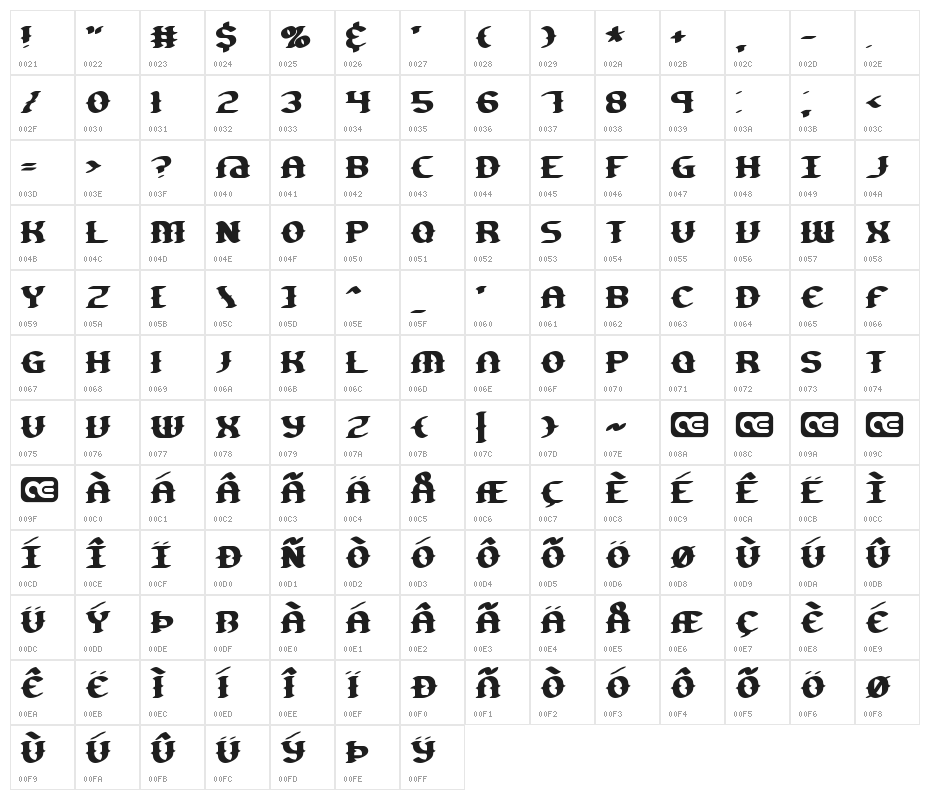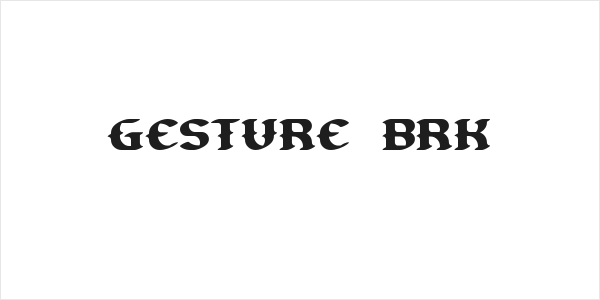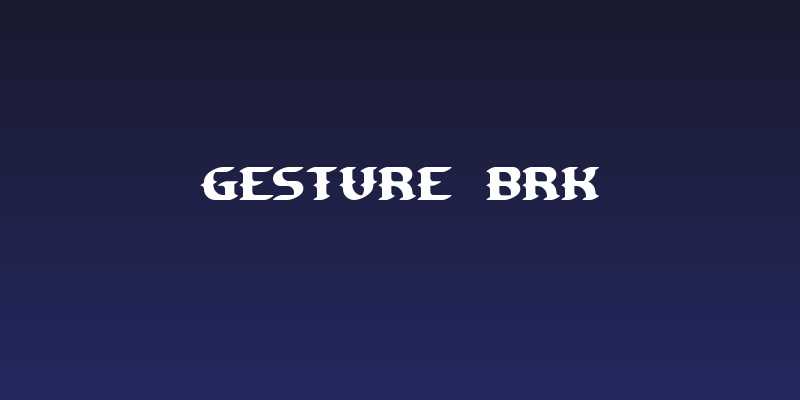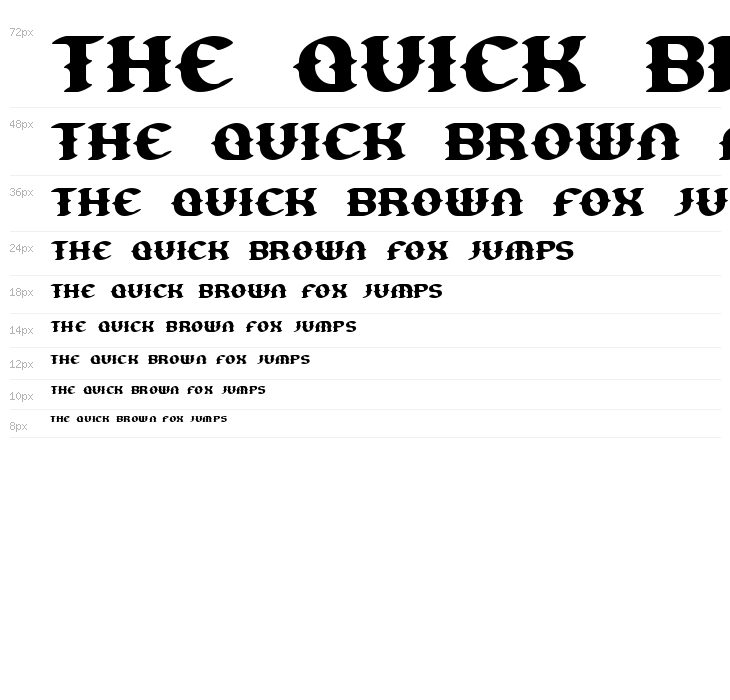
Gesture BRK Font
Gesture BRK Description
This font features a bold and striking design with a strong blackletter influence. The characters are heavily stylized, with sharp angles and intricate detailing that give it a medieval and gothic appearance. The uppercase and lowercase letters maintain a consistent style, with the uppercase being more pronounced. Numbers and special characters follow the same ornate design, making the font cohesive and visually impactful. This font is ideal for projects that require a dramatic and historical aesthetic.
| Overall Style | Gothic, Medieval |
| Proposed Projects | Suitable for branding, posters, album covers, and any design that requires a dramatic, historical touch. |